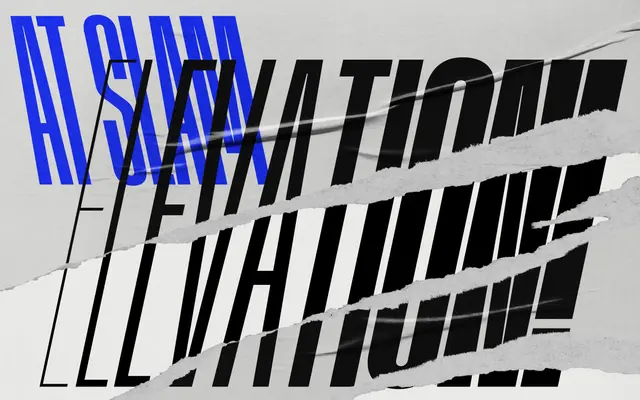
At Slam XXCnd
An extra-condensed display sans by Pedro Arilla, drawn from basketball culture and built across ten weights with both forward and backward slant cuts.
Thirty styles cover ten weights from Air to Super, each available in upright, Slanted and Backslant cuts, the latter being an uncommon addition that extends the expressive range considerably. A variable font ships with weight and slant axes, and OpenType features include circled numerals, old-school alternates and solid numeral variants that nod to scoreboard and jersey typography. Part of the wider At Slam collection, which runs from Cnd to XXXCnd for progressively tighter measures.
An extra condensed display sans with strong vertical rhythm and expressive weight range, inspired by basketball culture and designed for high-impact headline use.